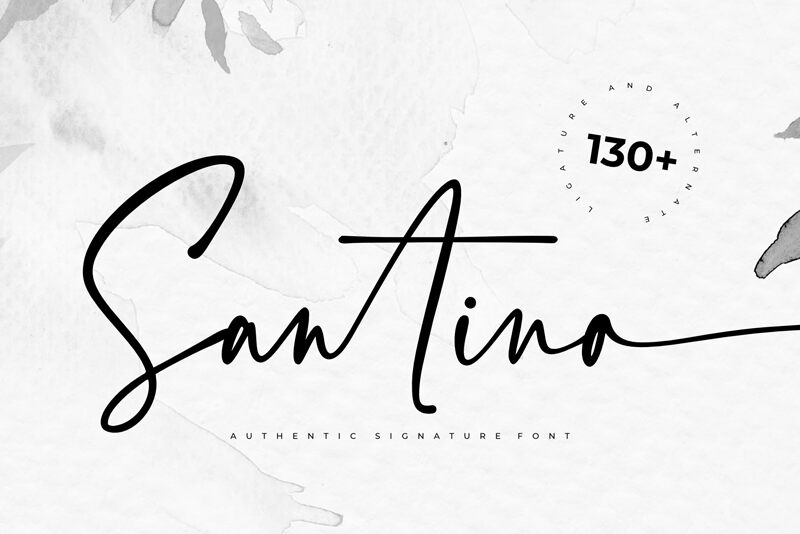
Santino, a charming and versatile handwritten font by Pen Culture, adds a touch of elegance to any project. Its semi-light weight creates an effortlessly legible yet delicate look, making it perfect for invitations, wedding stationery, and romantic branding. With its unique style that combines sophistication and playfulness, Santino breathes life into social media graphics, blog headers, and stylish packaging designs. Whether you're aiming for a vintage-inspired aesthetic or a modern twist on classic elegance, Santino's graceful strokes will captivate your audience and elevate your creative projects to new heights.
Designed by Revo Farisky from Pen Culture in 2022